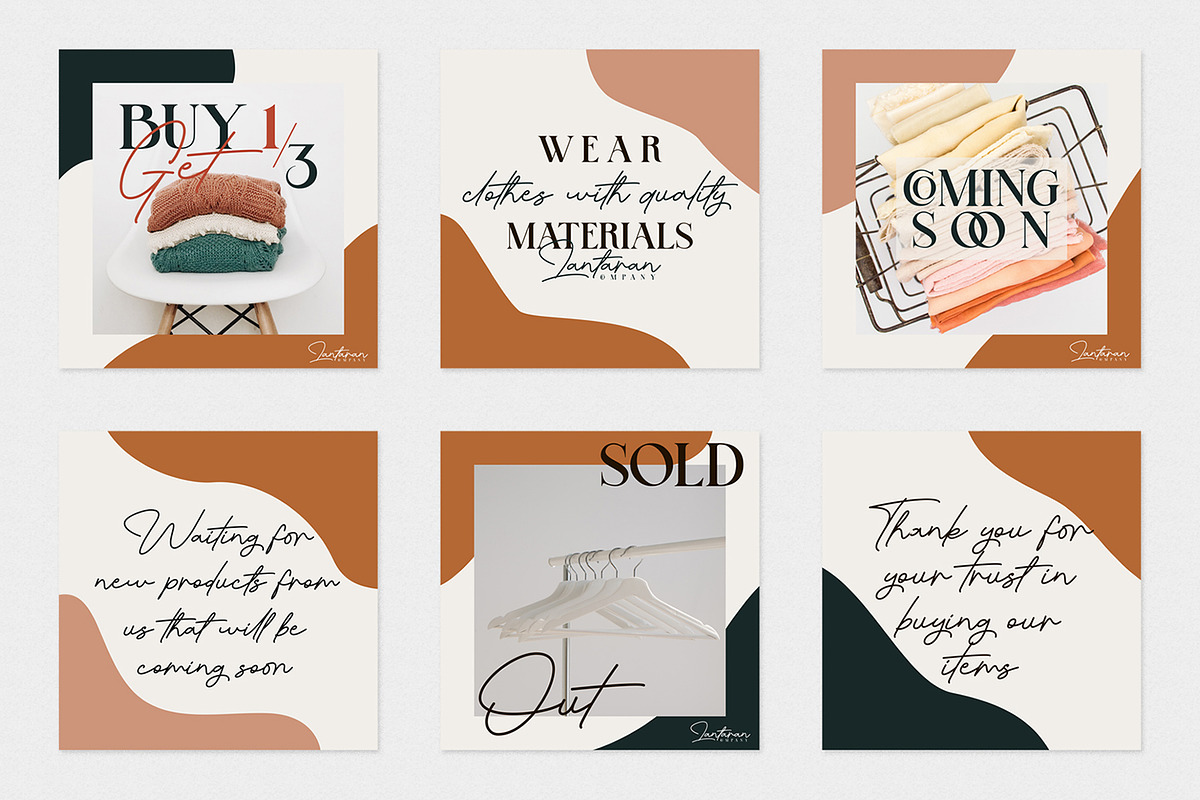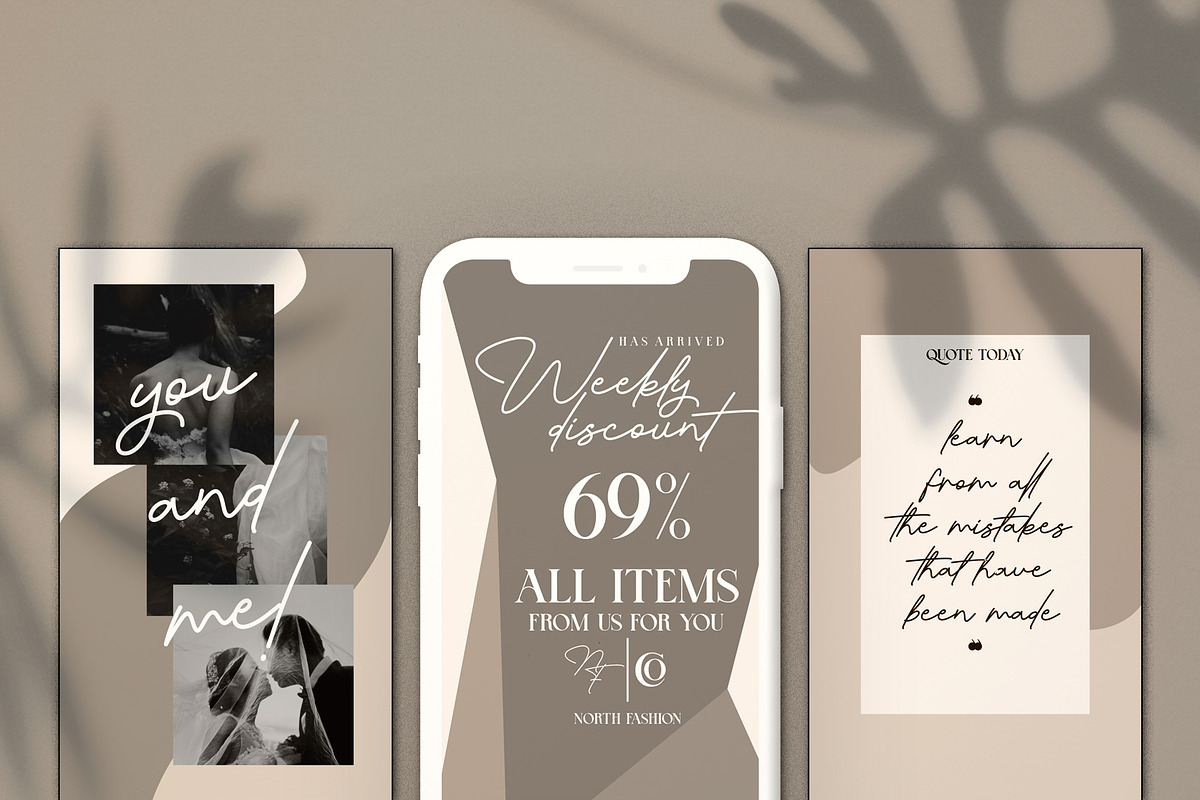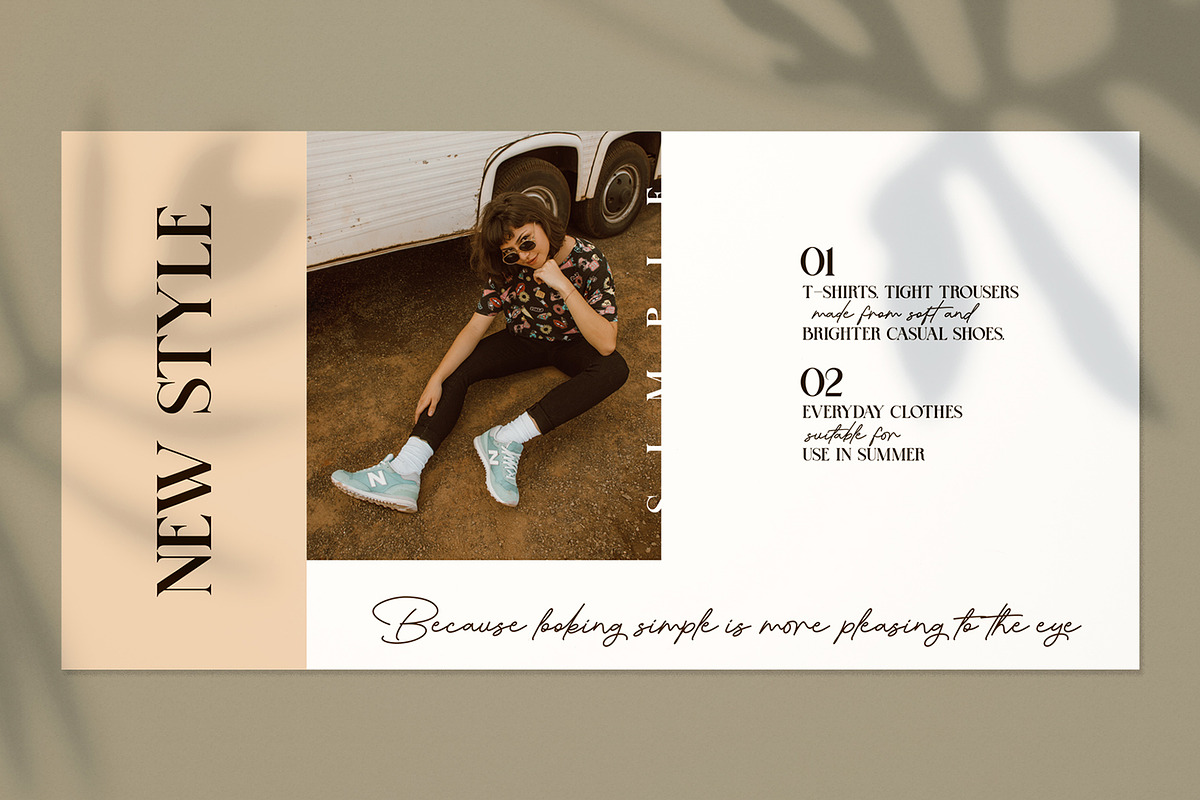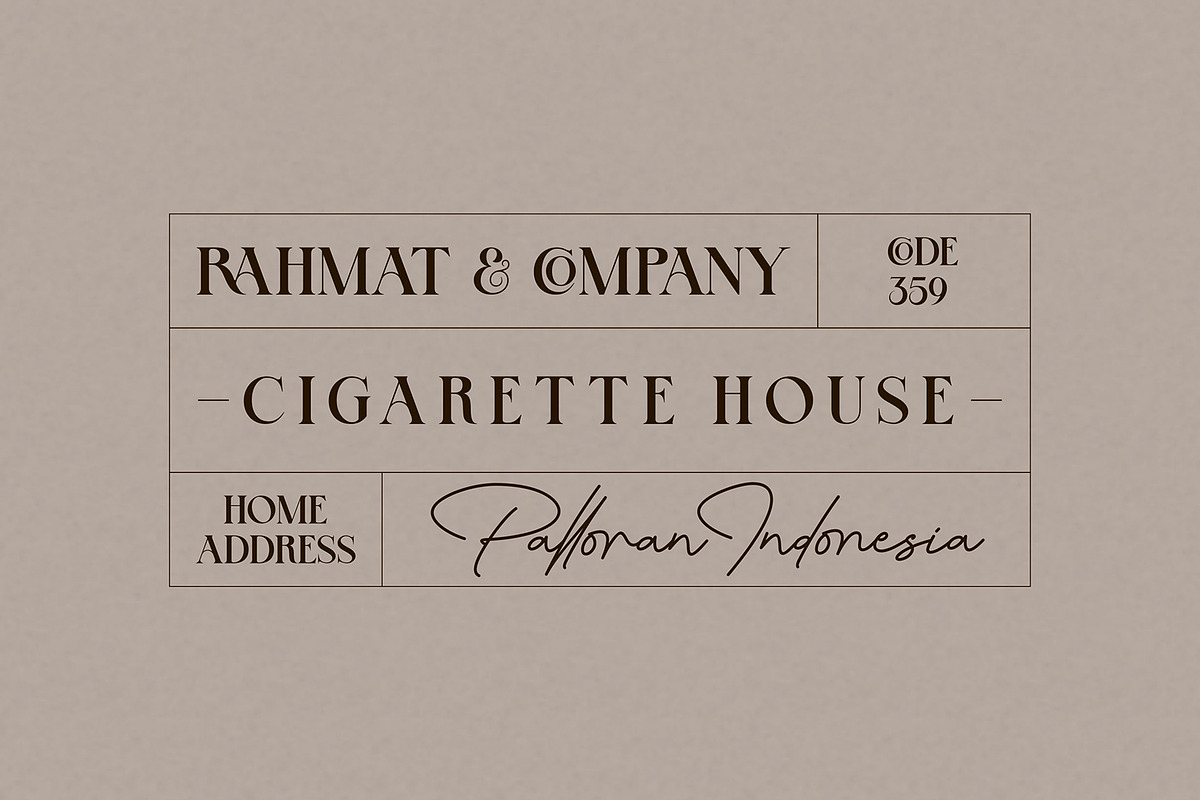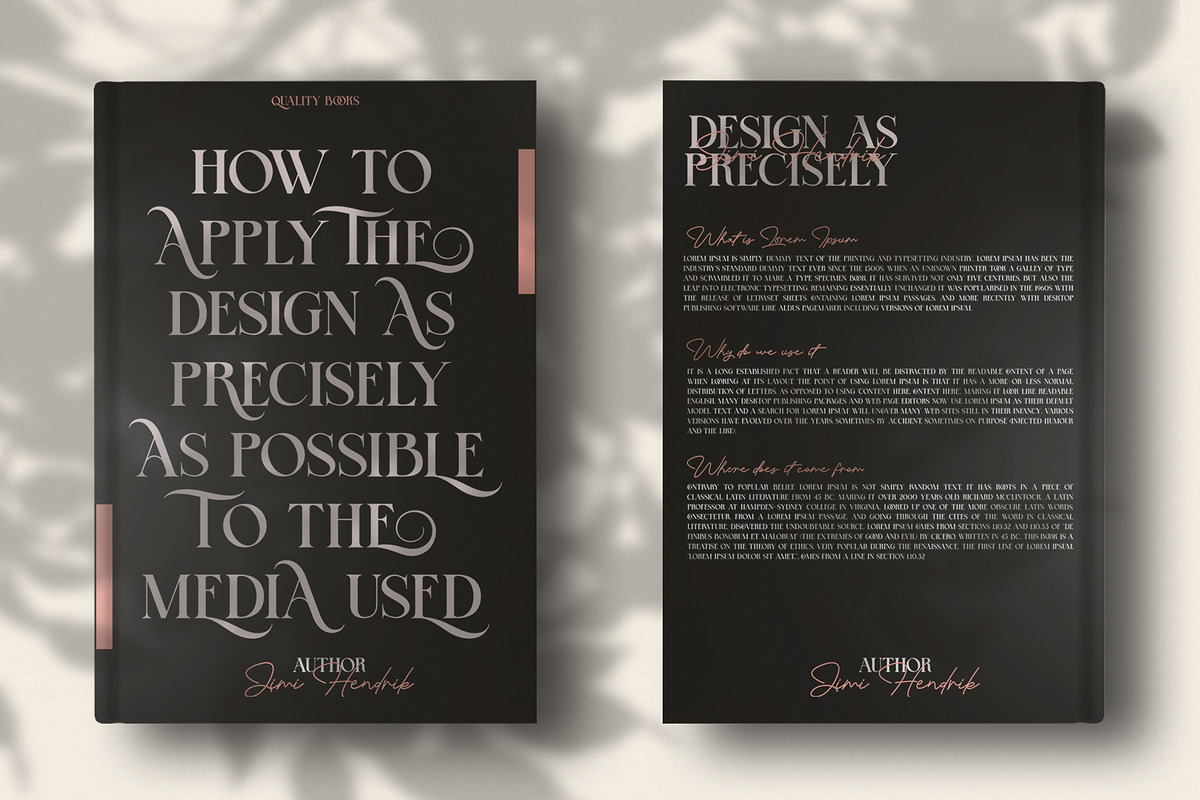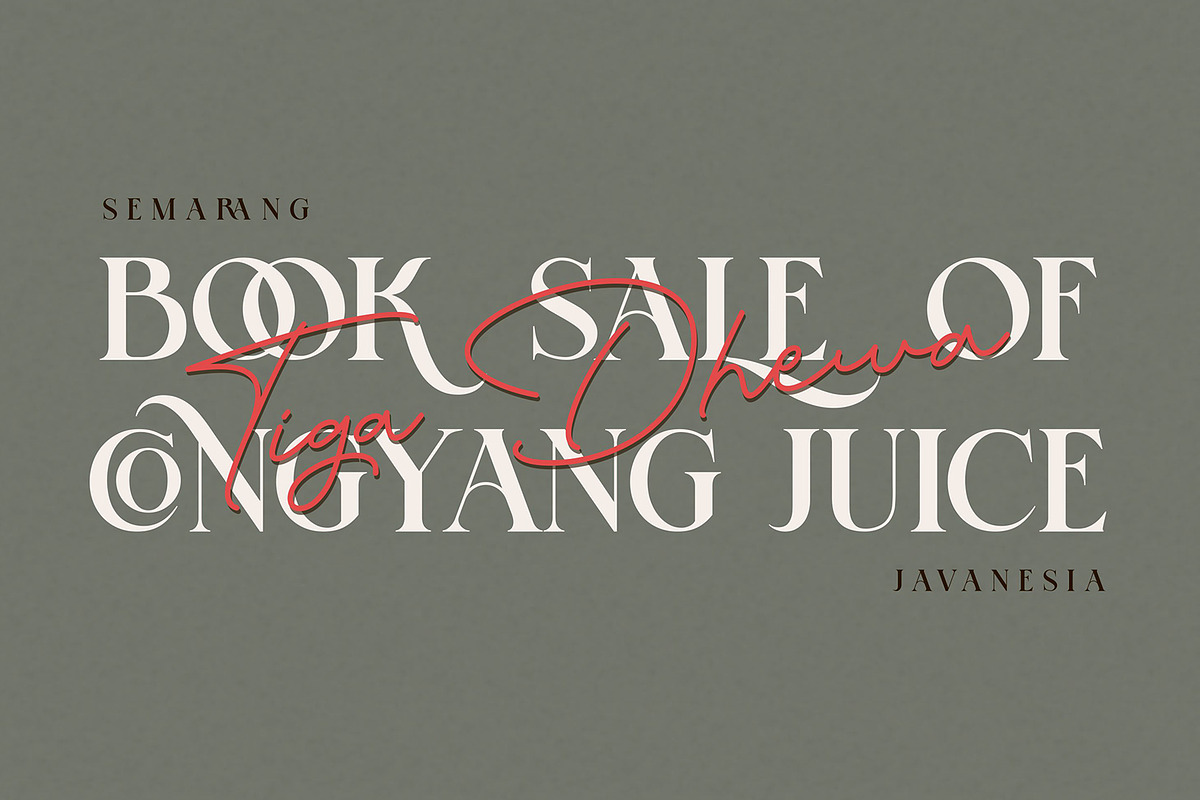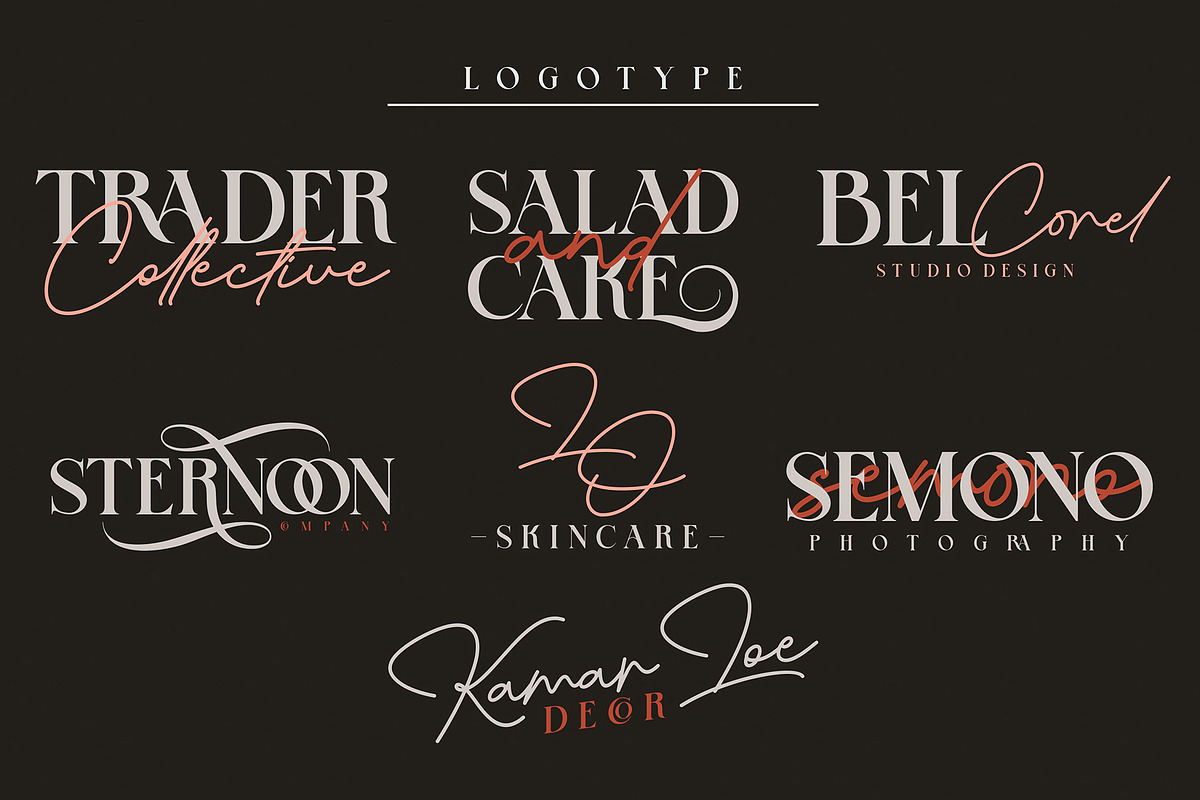
The Boorani Thampil Font Duo
THE BOORANI is handmade vintage typeface with serif and handwritten script fonts inside. Inspired by classic western culture, girly design culture, soft classic style with vintage touch. This fonts are great for logotype, badges, clothing, poster, wedding invitation and much more. This fonts comes with opentype features, multilingual support, ligature and so many alternative style to improve your design.
- This fonts comes with opentype features, multilingual support, ligature and so many alternative style to improve your design.
- Features The Boorani Font Duo comes with uppercase, lowercase, numerals, punctuations and many variations on each characters and include ope
The Boorani Thampil Font Duo by ngene fits naturally into Branding, posters, packaging, typography.